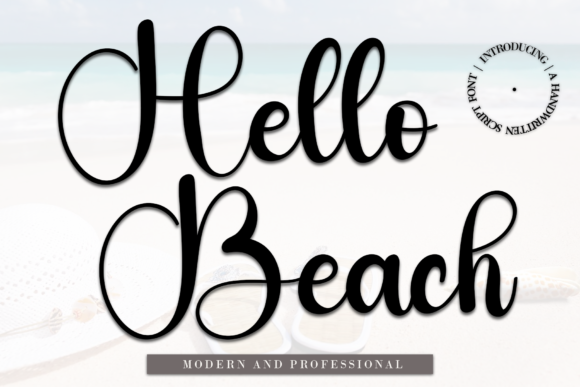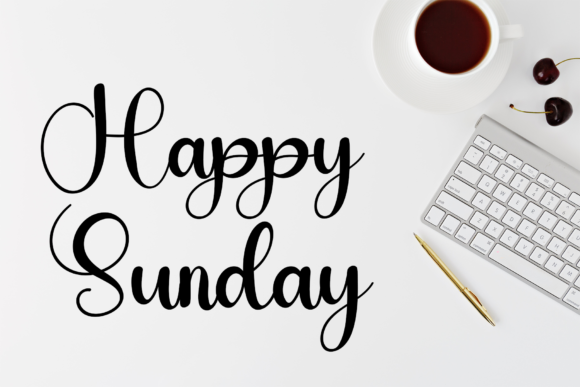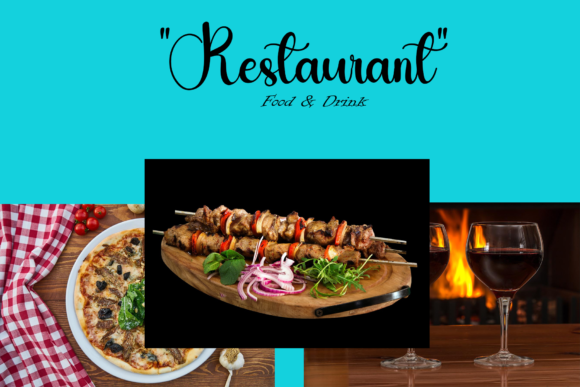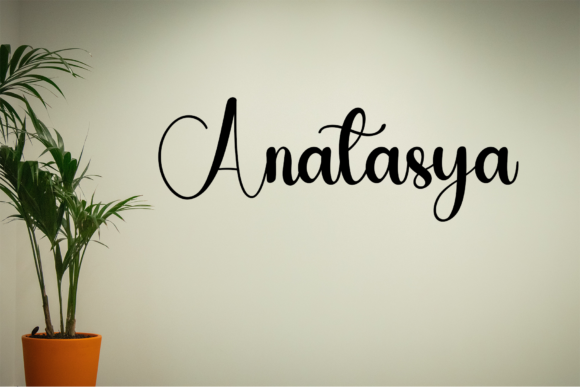
About Hello Beach Font
Introducing Hello Beach, a delicate handwritten font meticulously crafted to bring a cool and unique design to your projects. This font is the perfect choice for various applications, allowing you to write letters, invitations, label food products, create captivating titles, and much more.
The delicacy of Hello Beach shines through its carefully designed characters, adding a touch of elegance to your text. Imagine using this font to craft heartfelt letters, where its unique style enhances the personal touch of your messages. Visualize it on invitations, setting the tone for special events with a cool and distinctive aesthetic. Whether applied to food product labels or used for creating eye-catching titles, Hello Beach becomes a versatile and stylish asset in your design toolkit.
This handwritten font is crafted with precision to provide a cool and unique vibe. Its versatile nature allows it to adapt seamlessly to different contexts, adding a touch of personality and flair to your creative endeavors.
Embrace Hello Beach as the delicate yet impactful font that elevates your designs. Let it be the cool and unique element that makes your letters, invitations, food product labels, titles, and more stand out. Unleash your creativity, and watch as Hello Beach transforms your projects into visually captivating expressions of style and individuality.